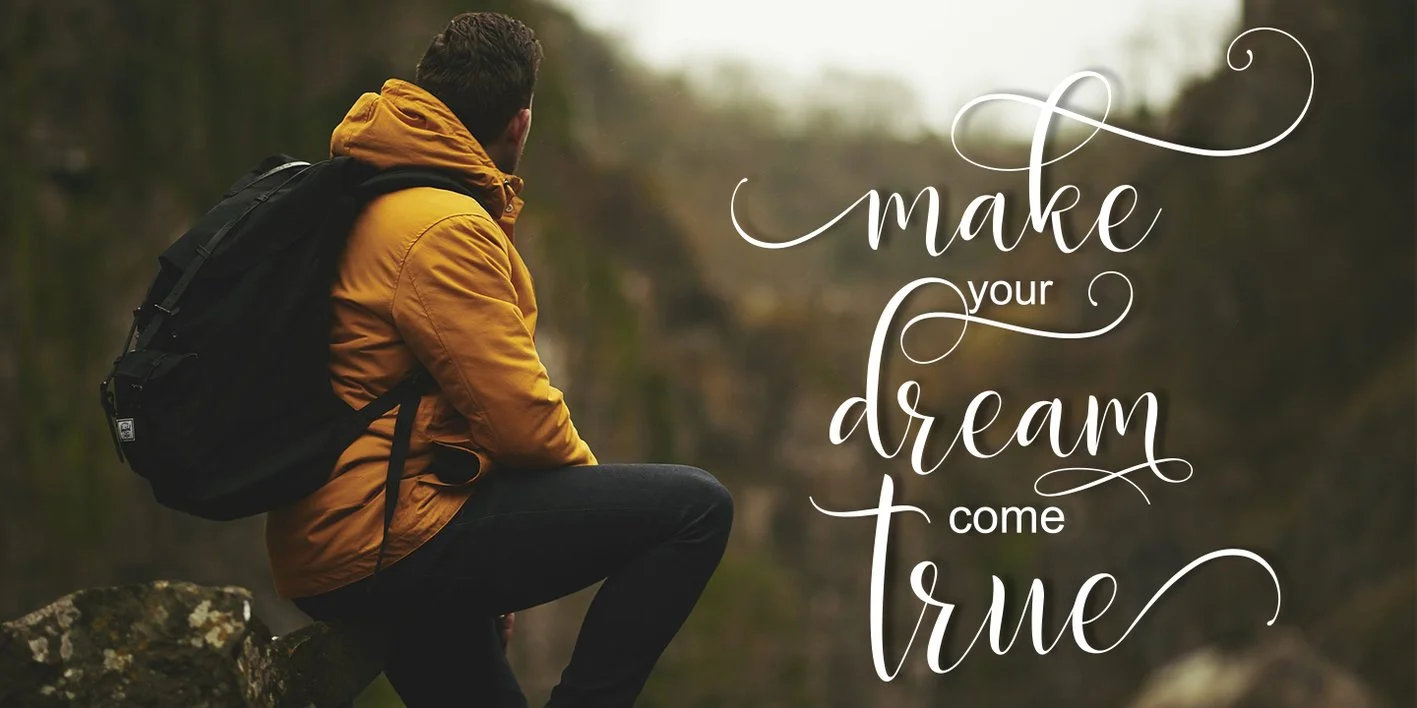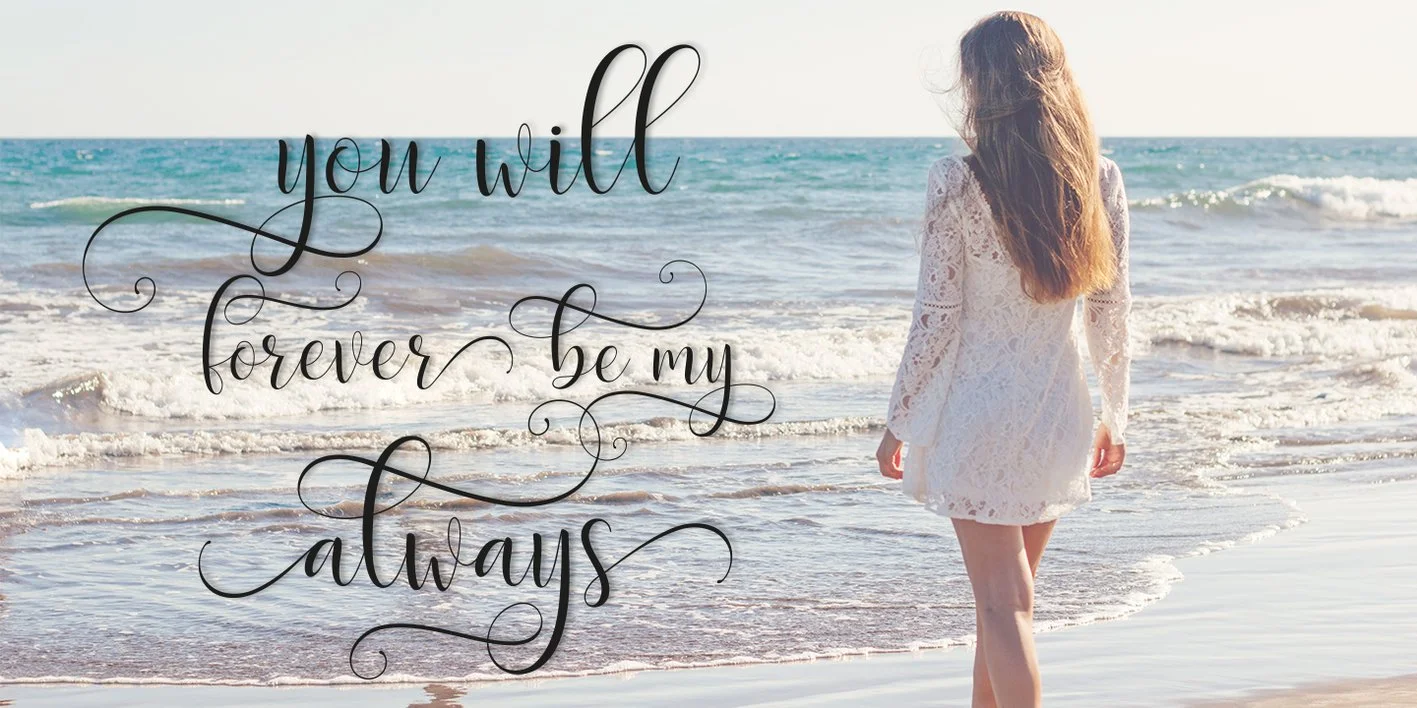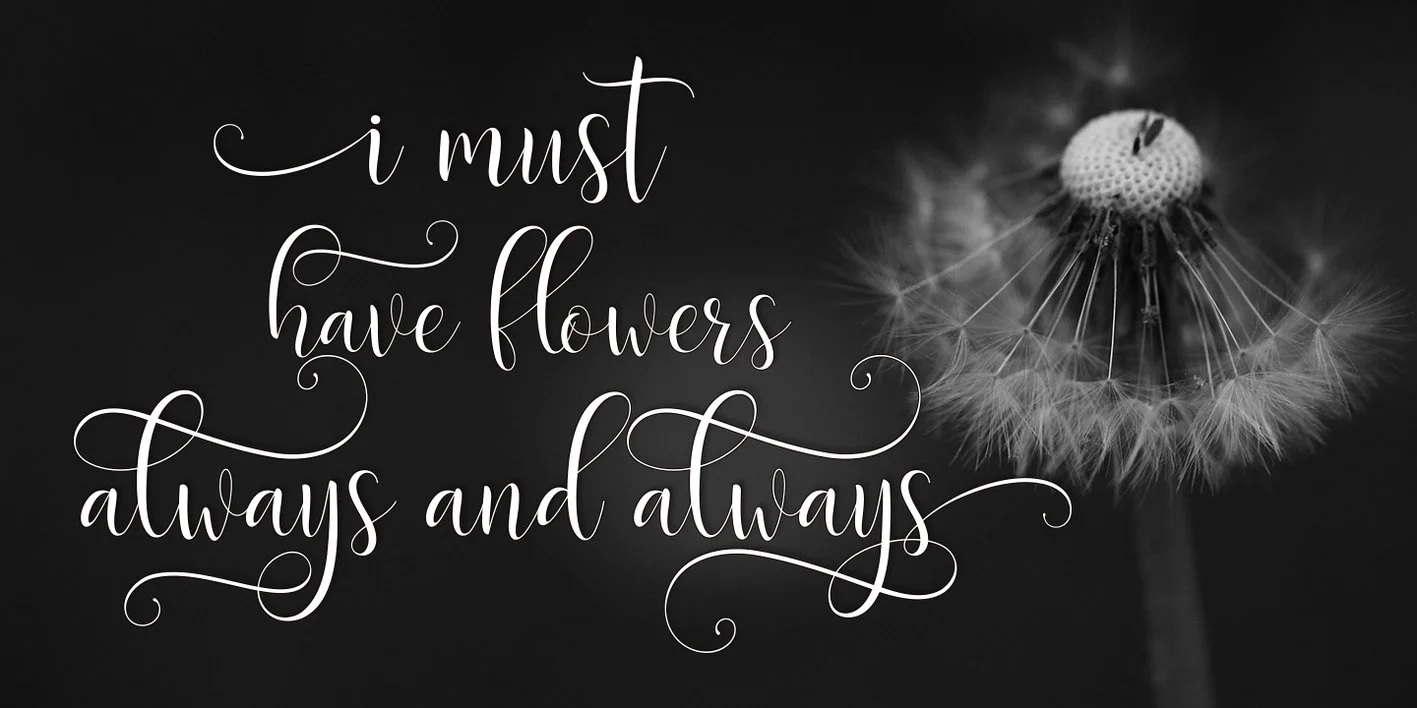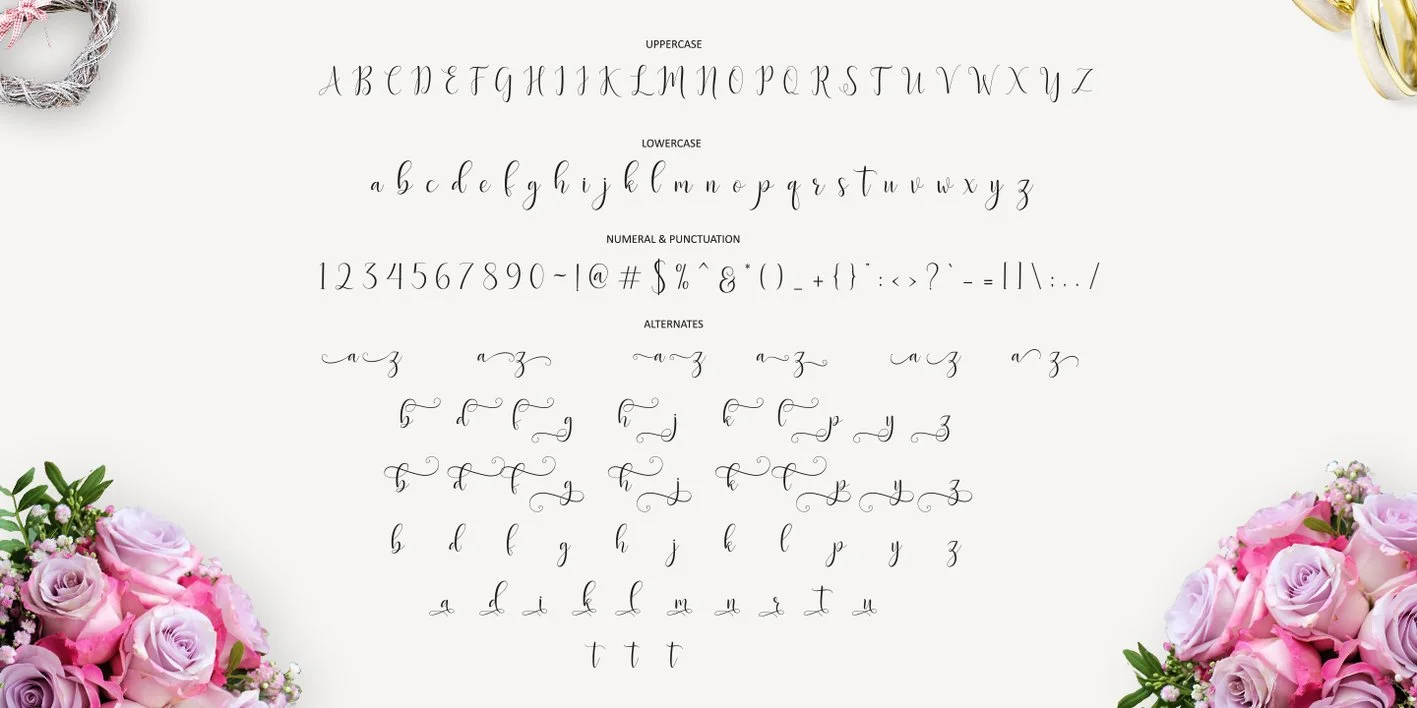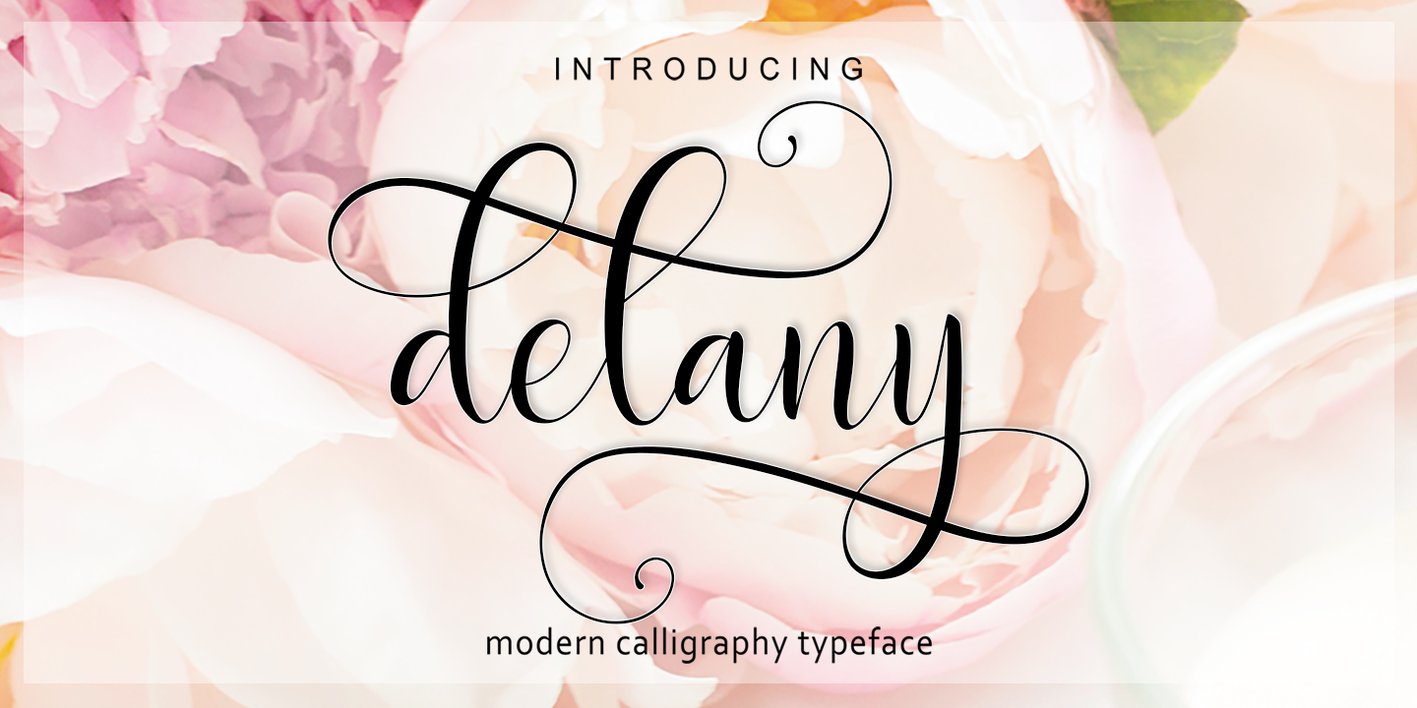
Delany Script Font
Delany Script Font is ideal for elegant wedding invitations, sophisticated personal stationery, luxury brand communications, graceful greeting cards, refined calligraphy projects, upscale boutique signage, intimate event materials, romantic restaurant menus, personalized gift items, and distinguished handwritten-style communications.
What makes Delany Script Font so exciting is its exquisite embodiment of handwritten elegance and personal sophistication that captures the intimate beauty of fine penmanship and the timeless appeal of graceful script lettering through meticulously crafted calligraphic typography. This elegantly designed typeface features flowing letterforms with handwritten proportions and calligraphic character variations that immediately convey refinement, intimacy, and the personal touch of authentic handcrafted communication. The font's graceful construction and personally elegant aesthetic create an instant sense of sophisticated intimacy and handwritten charm, making it ideal for projects that need to communicate personal elegance, intimate sophistication, and the transformative power of beautiful handwriting to audiences seeking authentic personal expression and meaningful handcrafted communication experiences.
The Delany Script Font family typically includes multiple elegant weights and script styles, often featuring regular, medium, and bold variations along with beautifully flowing connecting alternates. Script font collections frequently offer additional calligraphic elements such as flourish ornaments, elegant swashes, and handwritten decorations that enhance the sophisticated aesthetic and provide designers with comprehensive tools for creating genuinely personal and elegantly handcrafted communications.
Delany Script Font offers designers an exceptional resource for creating elegantly personal and sophisticatedly handwritten designs. Whether you're developing materials for luxury wedding planners, crafting personalized stationery for discerning clients, or designing communications for boutique businesses that celebrate personal elegance and handcrafted sophistication, this font delivers the graceful presence that elegance-conscious consumers and sophistication-minded audiences appreciate and find beautifully meaningful.
The script nature of Delany Script Font makes it particularly effective for targeting demographics that value personal elegance and handcrafted sophistication in their personal and special occasion communications. Luxury event planners and personalized service providers will find this font especially valuable for materials that must establish immediate elegance credibility and connect with audiences seeking authentic sophisticated experiences and meaningful personal expression.
What sets Delany Script Font apart is its ability to convey handwritten authenticity while maintaining the sophistication necessary for effective luxury and personal communication. This balanced characteristic makes it suitable for both intimate personal applications and upscale commercial contexts where projecting elegant craftsmanship and maintaining refined appeal must work together harmoniously.
Professional designers recognize that Delany Script Font brings invaluable elegance credibility to projects across industries including luxury events, personalized services, boutique retail, and sophisticated hospitality. Its script character and elegant appeal make it essential for organizations whose mission centers on celebrating personal sophistication, promoting handcrafted elegance, and creating meaningful connections between authentic personal expression and sophisticated aesthetic appreciation.
The thoughtfully crafted calligraphic authenticity of Delany Script Font ensures consistent elegant messaging across all handwritten-focused communication applications while honoring the fundamental importance of personal touch and sophisticated craftsmanship in elegant typography.